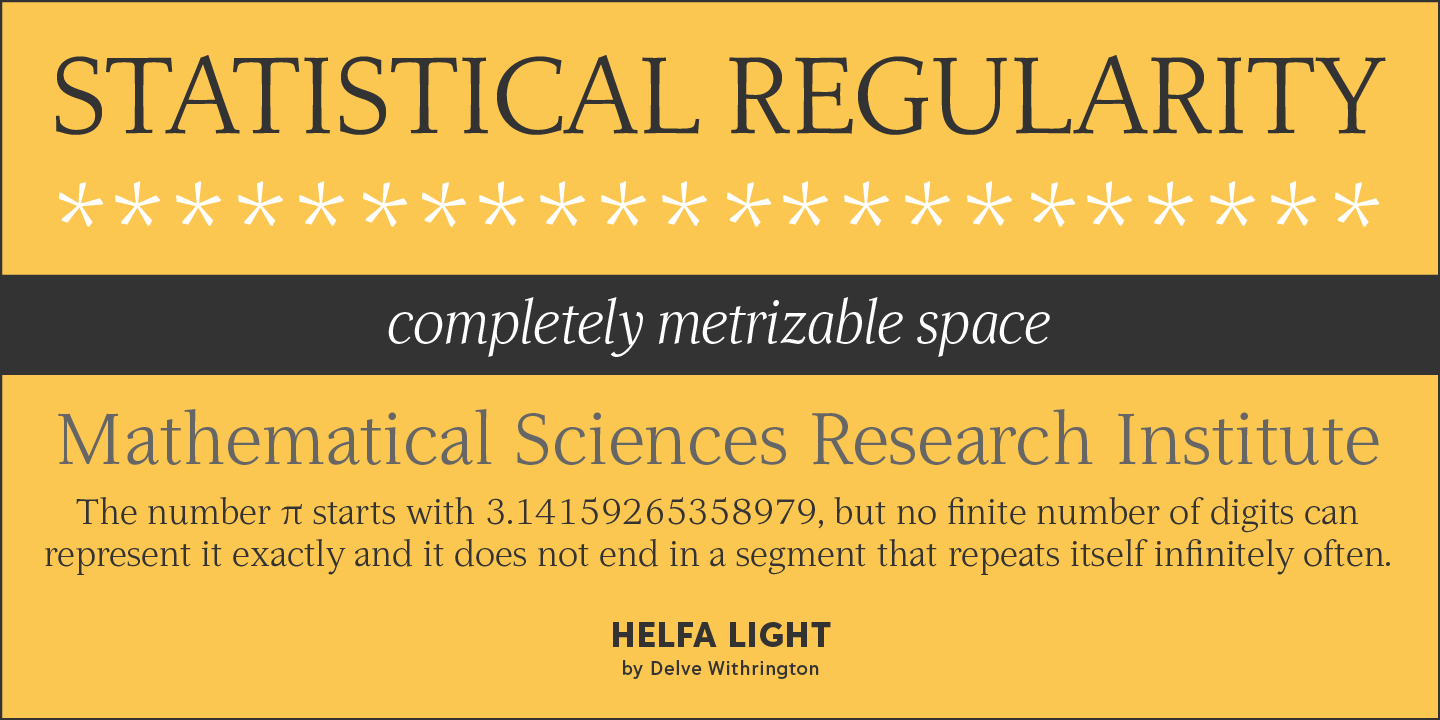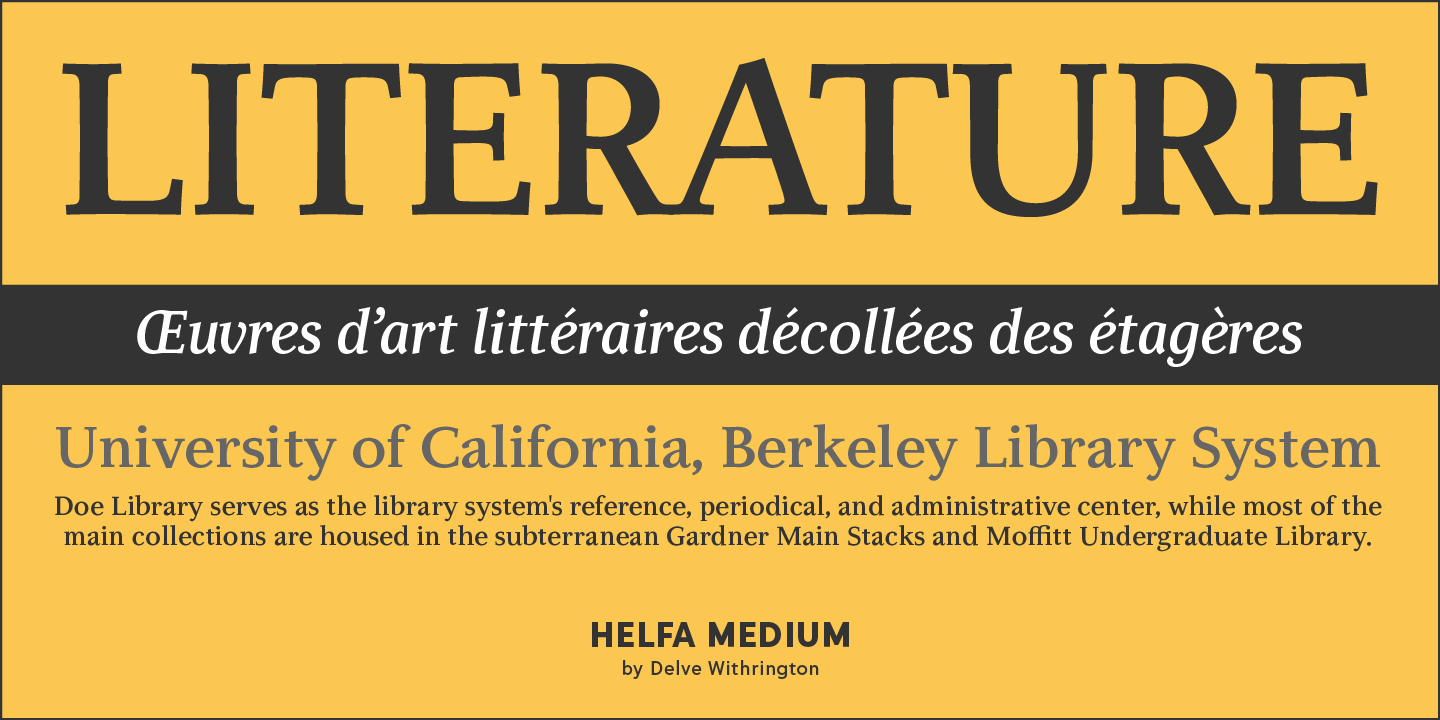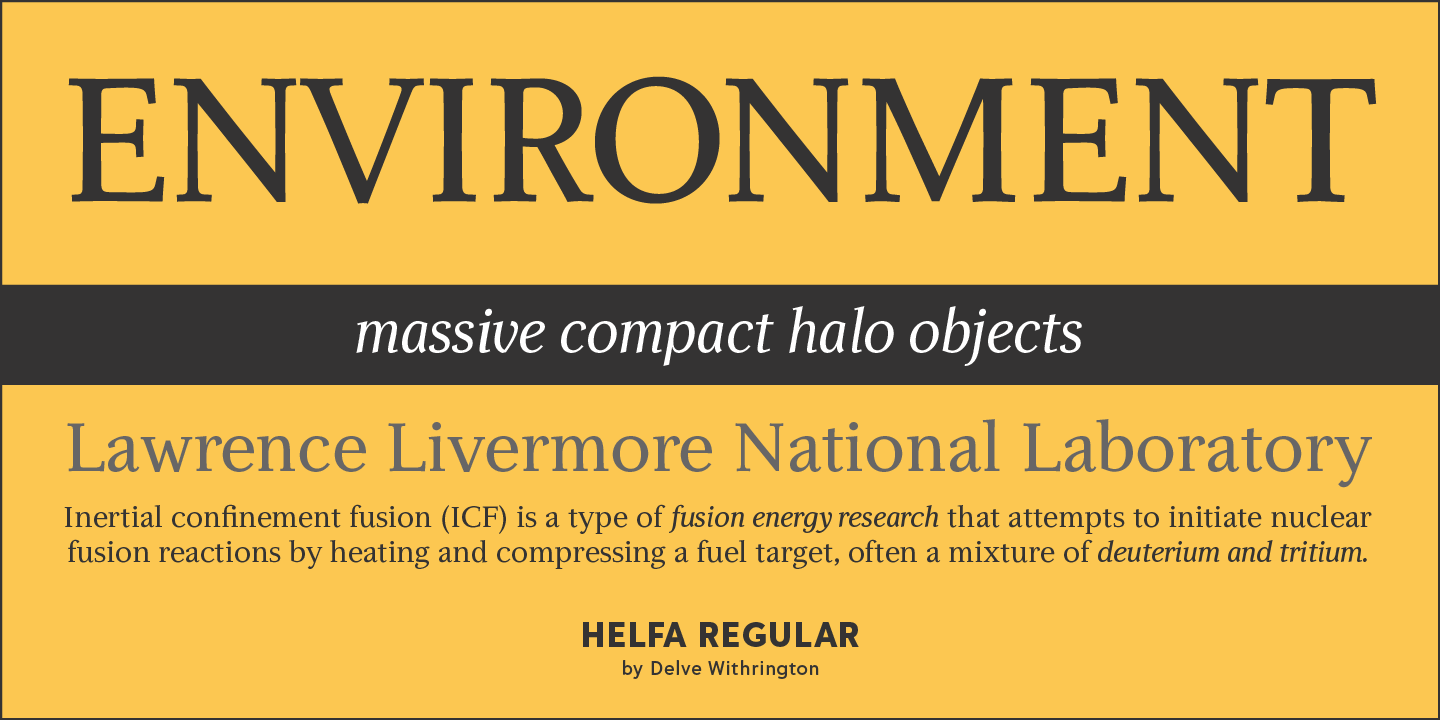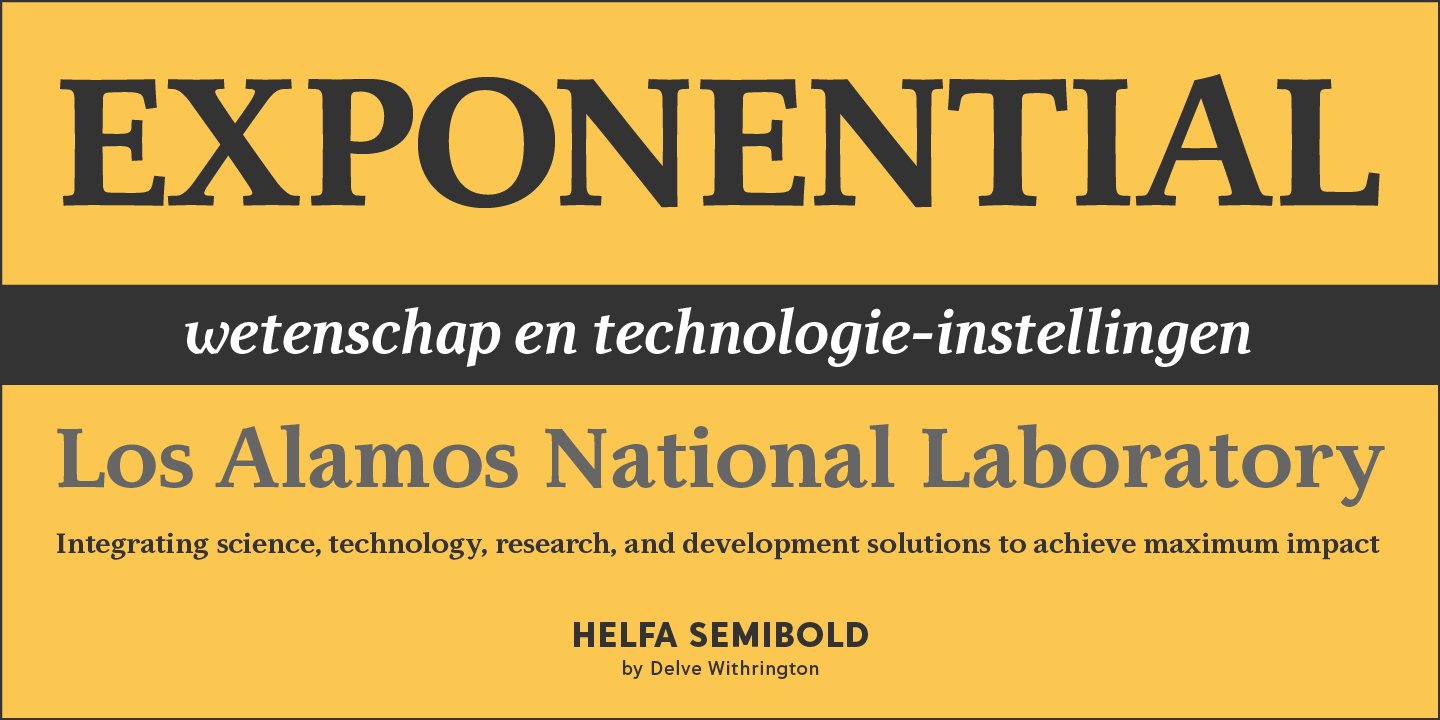
About Helfa
Designed by Delve Withrington, Helfa was originally inspired by the work of Frederic Goudy and in particular his 1938 typeface ?University of California Old Style? created for The University of California Press. The design of Helfa however is much more…